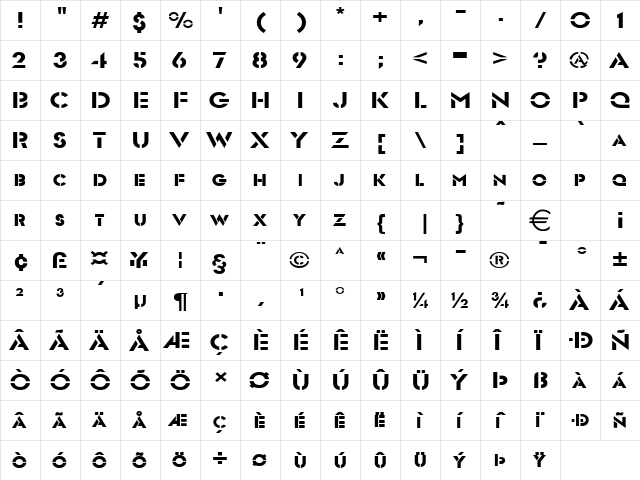
TemplettWide Normal Font Preview
TemplettWide Normal
TemplettWide Normal Font Details
Design Context for TemplettWide Typeface
TemplettWide takes a measured approach to typography — its balanced proportions and neutral character make it a reliable workhorse for both digital and print work.